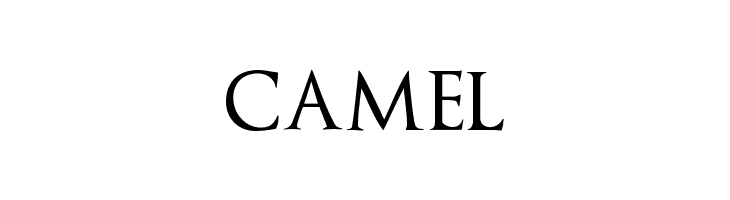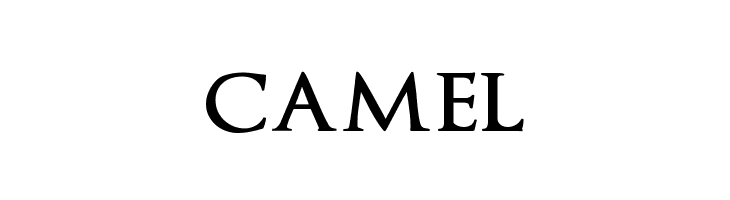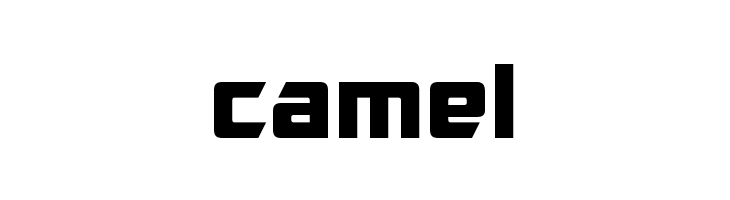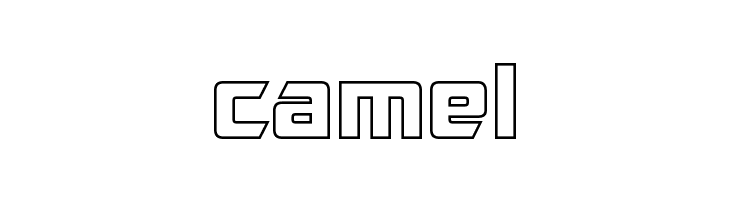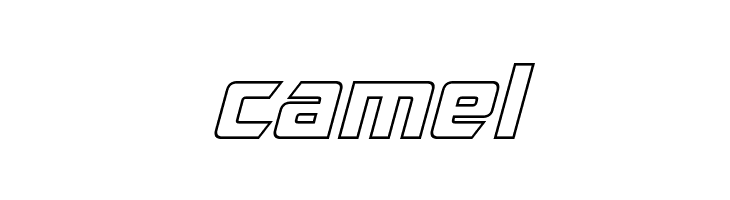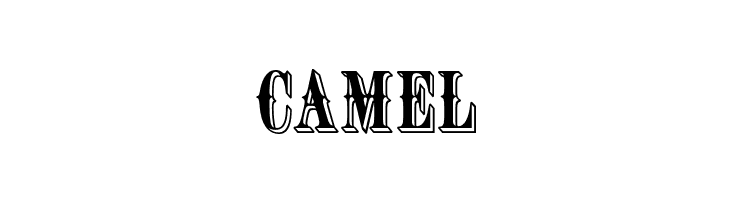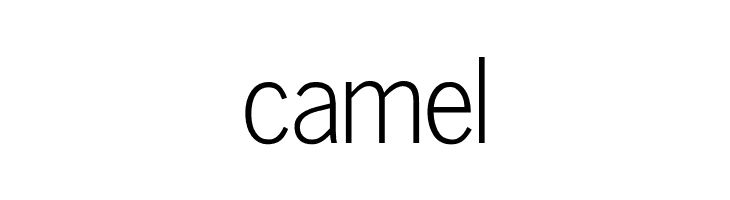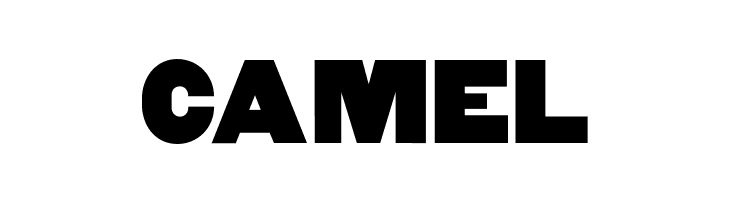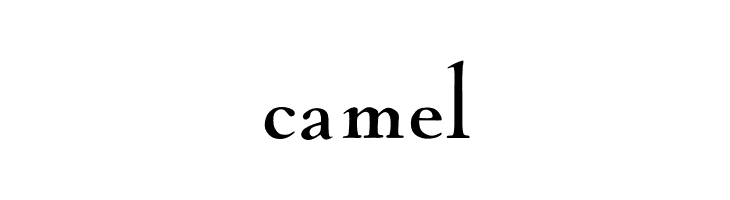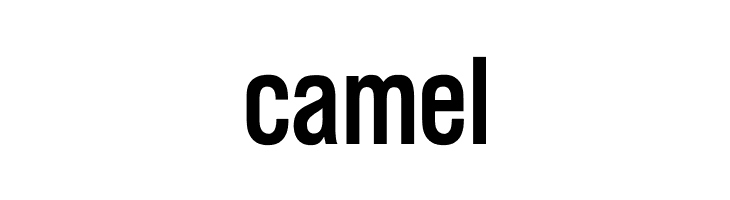
A modern serif font with high contrast and elegant styling.
A classic serif font with elegant curves and moderate contrast, perfect for sophisticated designs.
A modern serif typeface with elegant proportions and a sophisticated style.
A bold, condensed font with high contrast and strong visual impact.
An elegant script font with flowing, ornamental characters.
A bold, heavy font with strong, uniform strokes and tight spacing.
A bold, playful font with thick, uneven strokes and a hand-drawn appearance.
A bold, geometric font with angular, industrial letterforms.
A bold, geometric font with a hollow interior, offering a futuristic and industrial look.
A modern, geometric, hollow italic font with a dynamic and futuristic style.
Light, handwritten script with elegant loops and tall ascenders.
A classic serif font with elegant, sharp serifs and a traditional appearance.
A classic serif font with elegant curves and a semi-bold weight, exuding sophistication.
A bold, modern sans-serif typeface with clean lines and strong presence.
A classic serif font with elegant contrast and sharp serifs.
A bold, geometric font with inline detailing for a modern, striking look.
A bold, decorative font with a vintage, three-dimensional style.
A clean, modern sans-serif font with a light weight and excellent readability.
A bold, italicized font with strong strokes and a dynamic slant.
A classic serif font with elegant strokes and balanced structure.
A refined serif typeface with balanced proportions and subtle contrast.
A bold serif font with strong strokes and pronounced serifs, ideal for impactful designs.
A classic serif font with elegant and refined letterforms.
A bold, high-contrast serif font with a modern twist.
An elegant serif italic font with smooth, flowing lines and a refined appearance.
A classic serif font with high contrast and elegant strokes.
A bold, modern sans-serif font with clean lines and a strong presence.
A bold, decorative font with swirling, ornate characters.
A bold, high-contrast font with sharp serifs and angular lines, ideal for dramatic designs.
An elegant and flowing script font with graceful loops and cursive strokes.
A bold, gothic-inspired font with sharp, angular edges and a medieval flair.
A modern, geometric font with a futuristic and clean design.
A playful, hand-drawn serif font with a whimsical and modern twist.